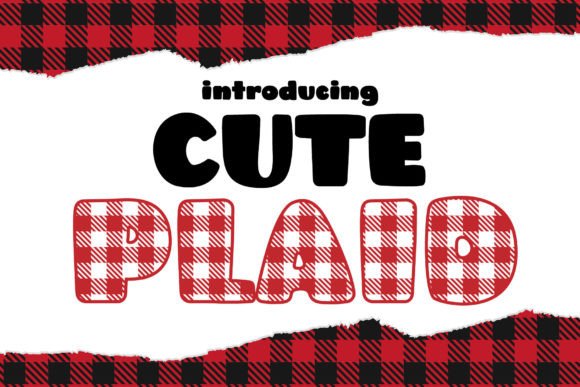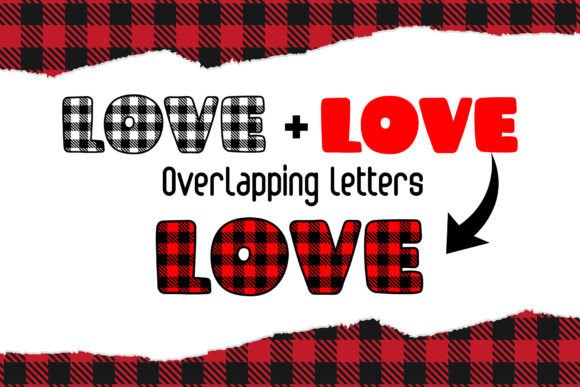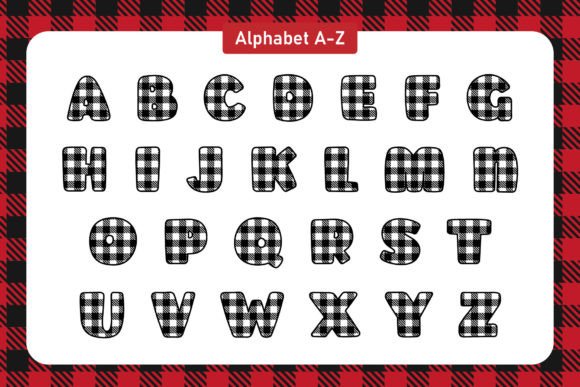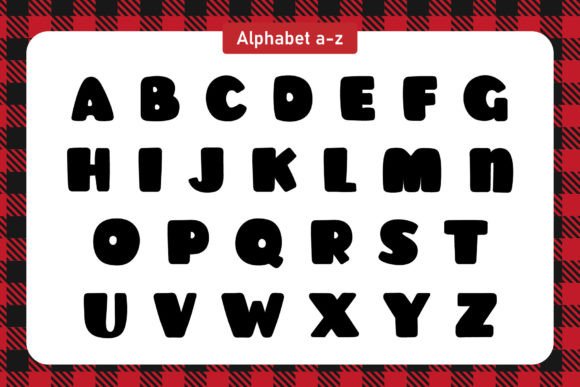
Cute Plaid Font
About the Cute Plaid Font
From logos to headlines, the Cute Plaid Font is the perfect choice for making a lasting impression. Cute Plaid is a cute, casual, and friendly decorative font. It is perfect for Xmas projects, fall projects, blog posts, logos, branding, ads, invitations, greeting cards, planners, photo albums, decorations, and more. It will be a wonderful asset to your fonts library as it has the potential to enhance any creation. Add it to any of your designs, and enjoy the results!
Cute Plaid’s playful character makes it ideal for projects requiring a friendly, approachable feel. It excels in headlines, short text blocks on packaging, and social media graphics. Use it sparingly in branding applications, focusing on logos or short taglines; it’s less suitable for extensive body text or UI elements where readability is paramount.
For optimal visual balance, pair Cute Plaid with a clean sans-serif like Open Sans for body text or a slightly more structured serif like Lora for a touch of classic elegance. Avoid pairing it with other highly decorative fonts, as this can create visual clutter.
The font’s overall personality is best described as cheerful and informal. Consider Cute Plaid for brands targeting a younger demographic or those emphasizing warmth and approachability, such as artisanal food companies, children’s products, or seasonal events.